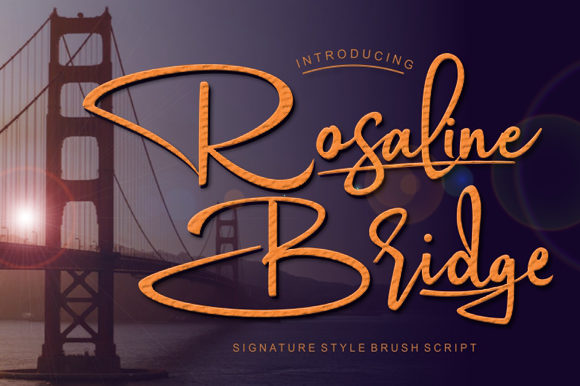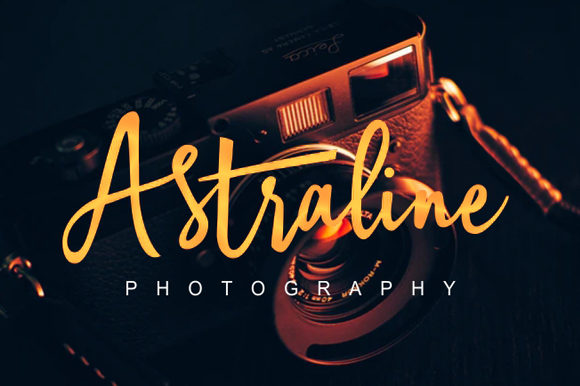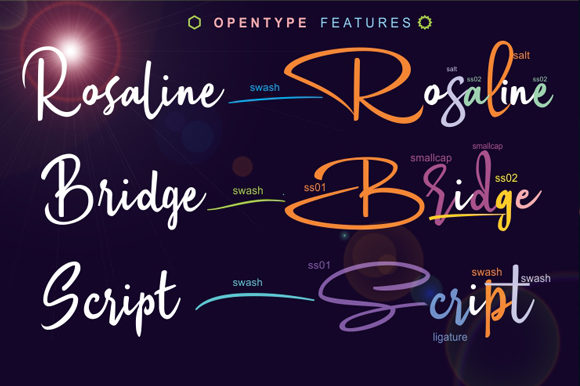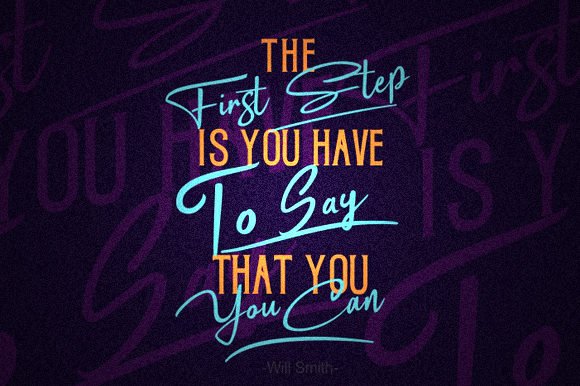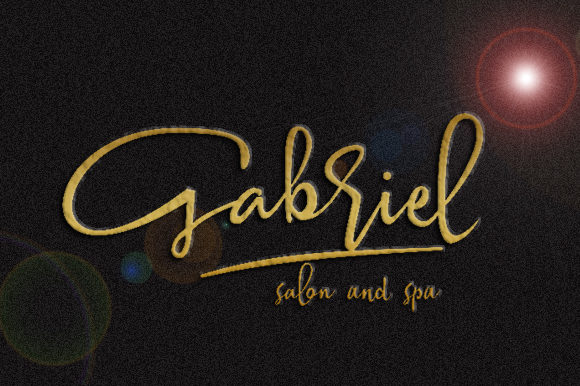
Rosaline Bridge Font
About Rosaline Bridge Font
Rosaline Bridge is a gorgeous and delightful script with a unique feel. Get inspired by its modern style, and turn any design project into a true standout!